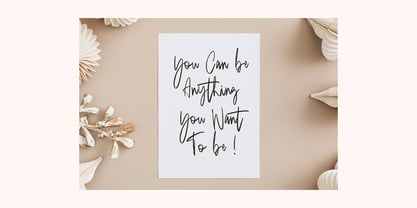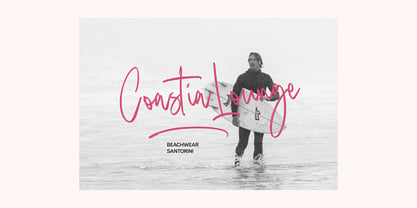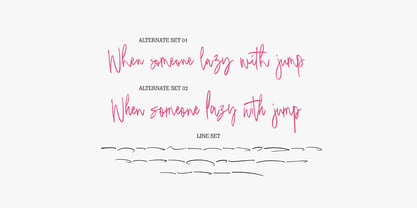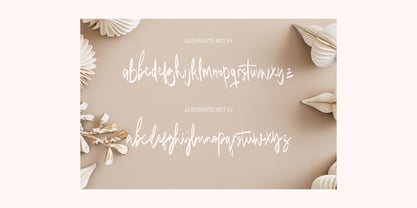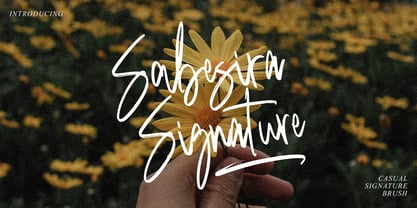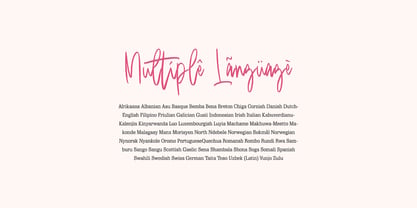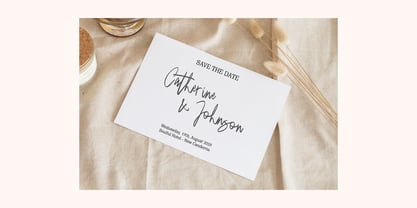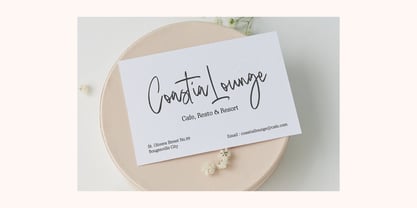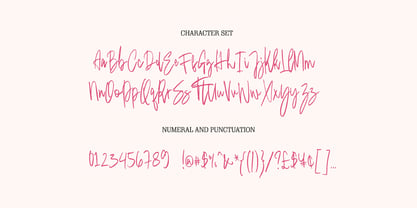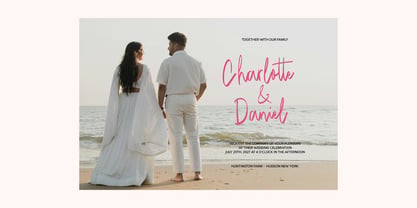
Sabesira Signature Brush
The Sabesira Signature Brush Font Family was designed by Dzulka Elfira and published by Tebaltipis Studio. Sabesira Signature Brush contains 1 styles. More about this family
Sabesira Signature Brush with a handmade Signature style, decorative characters and a dancing baseline! So beautiful on invitation like greeting cards, branding materials, business cards, quotes, posters, and more!!
Sabesira Signature Brushcome with 170+ glyphs. The alternative characters were divided into several Open Type features such as Swash, Stylistic Sets, Stylistic Alternates, and Ligature. The Open Type features can be accessed by using Open Type savvy programs such as Adobe Illustrator, Adobe InDesign, Adobe Photoshop Corel Draw X version, And Microsoft Word. And this Font has given PUA unicode (specially coded fonts). so that all the alternate characters can easily be accessed in full by a craftsman or designer.
Sabesira Signature Brush Features :
Uppercase & Lowercase International Languange & Symbols Support Punctuation & Number PUA Unicode Range Standard Ligatures Discretionary Ligatures Stylistic Alternates Stylistic Set.